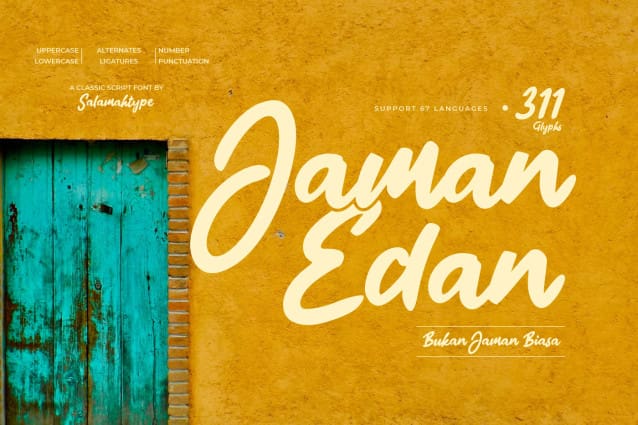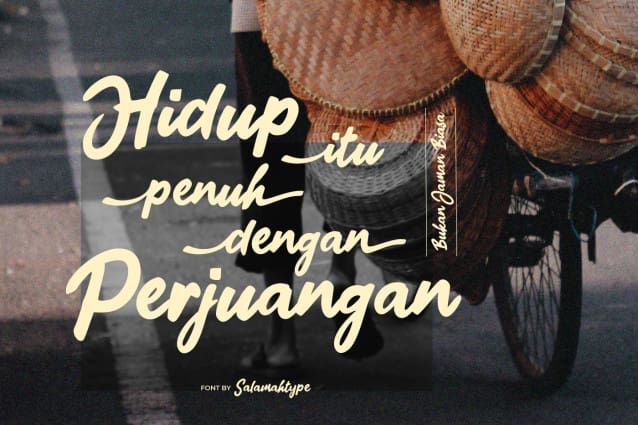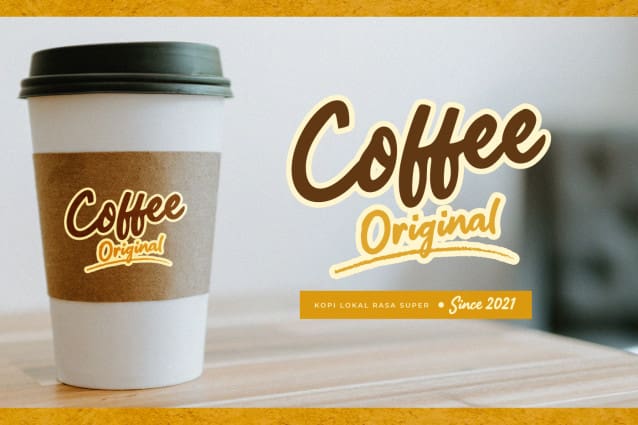
Jaman Edan Script Font
Jaman Edan Script Font is a script font with classic style. This font is perfect for logo, website/store, watermark, stationery, posters, flyers, social media posts, advertisements, product packaging, branding projects, product designs, label, photography, and so much more.